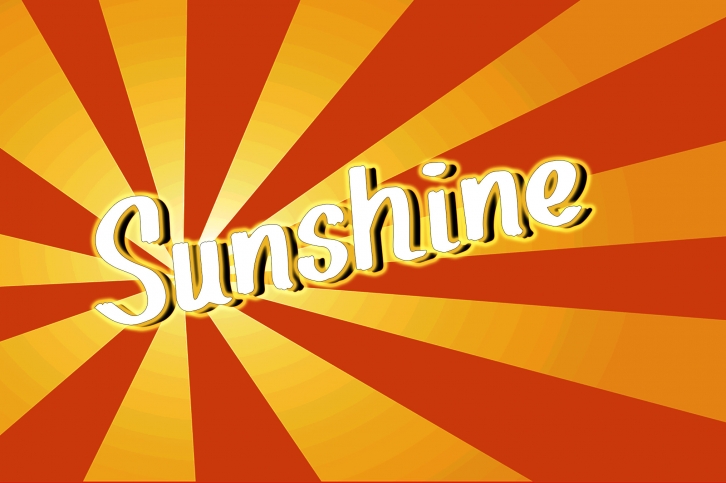
Sunshine is a cool and playful handwritten font. Whether you’re looking for fonts for banners, wedding cards, or anything you can imagine, this font will turn any creative idea into a true piece of art!